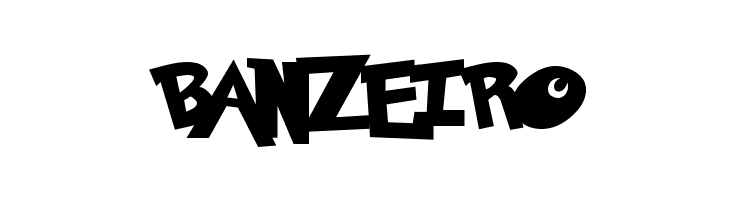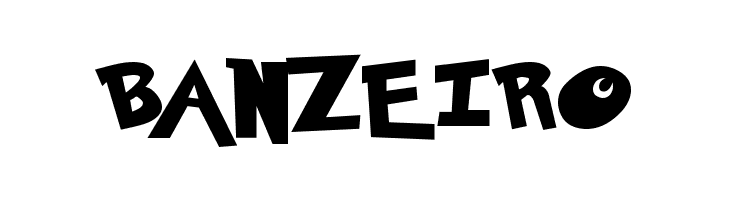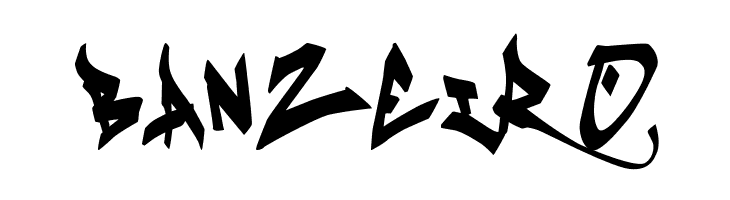
• Kentaurus Italic
A modern italic font with sleek, slanted characters and medium contrast.
• KenyanCoffeeRg-Bold
A bold, impactful font with thick, uniform strokes and a strong presence.
• KenyanCoffeeRg-BoldItalic
A bold, italicized font with a modern, dynamic style and condensed width.
• KenyanCoffeeRg-Italic
A bold, italic, and condensed font with a dynamic and energetic style.
• KenyanCoffeeRg-Regular
A bold, condensed sans-serif font with modern, clean lines.
• Kerater Black
A bold, geometric font with a modern and commanding presence.
• Kerater Medium
A modern, geometric font with consistent stroke width and clear readability.
• Kerater UltraLight
A modern, ultra-lightweight font with clean lines and a geometric structure.
• Kerater UltraLight Italic
An ultra-light, italic font with a modern and elegant style.
• KerberosFang
A bold, grungy brush-style font with a distressed texture.
• KerberosFang-Demo
• kermesse
A bold, geometric font with a futuristic and digital aesthetic.
• Ketchum
A playful, bold font with exaggerated curves and angles.
• Ketchum
A bold, playful font with exaggerated curves and angles, perfect for creative projects.
• Ketchum Italic
A bold, italicized font with dynamic curves and a playful style.
• Keusta Regular
• Keytin
A modern, tall, and narrow sans-serif typeface with clean lines.